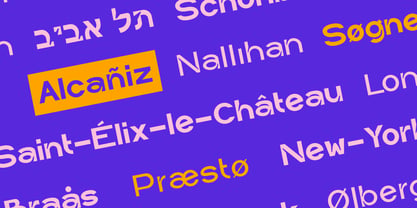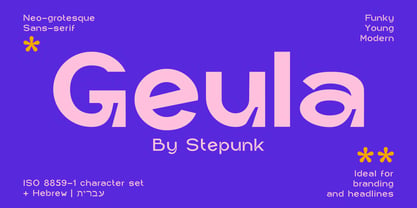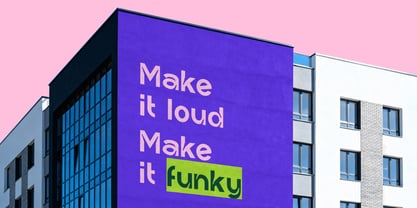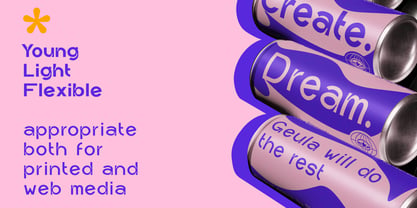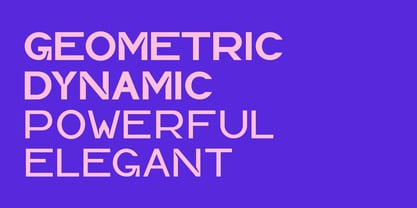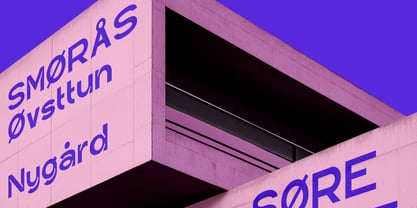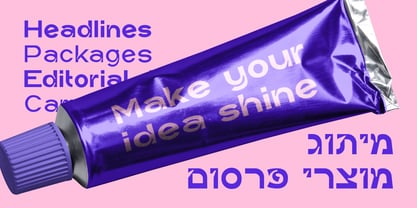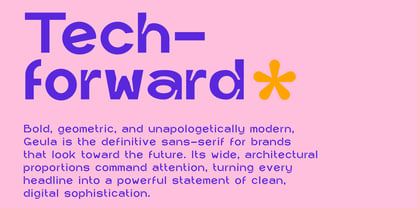
Geula
by Stepunk
The Geula Font Family was designed by Stepan Kazintsev and published by Stepunk. Geula contains 2 styles and family package options. More about this family
Geula is a neo-grotesque sans-serif font. It is modern, young, funky, and it is going to fit the collection of every graphic designer. Geula will make every branding project stand out, striking with its energetic, free-style approach. * Appropriate for web and editorial use. Ideal as a display font. * Light, stylish, modern, and funky * Supports English, Hebrew, Afrikaans, Basque, Catalan, Danish, Dutch, Finnish, French, German, Irish, Italian, Norwegian, Portuguese, Spanish, and Swedish (ISO 8859-1 character set + Hebrew).
Designers: Stepan Kazintsev
Foundry: Stepunk
Stepunk is a startup family-owned type foundry in Tel Aviv, Israel. It was founded by Stepan Kazintsev, a passionate brand and type designer. We produce high-quality, affordable fonts for both commercial and personal use, with a specialization in Hebrew and Latin scripts. Apart from perfectionism in every letter, every typeface of ours has its own personality and scent.